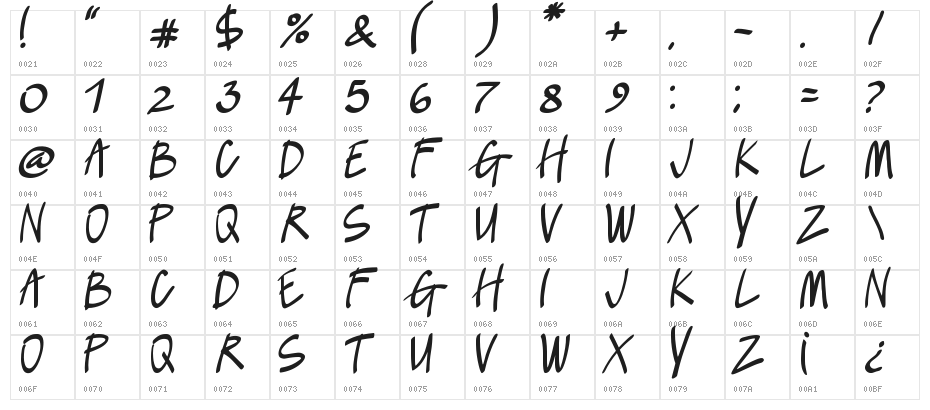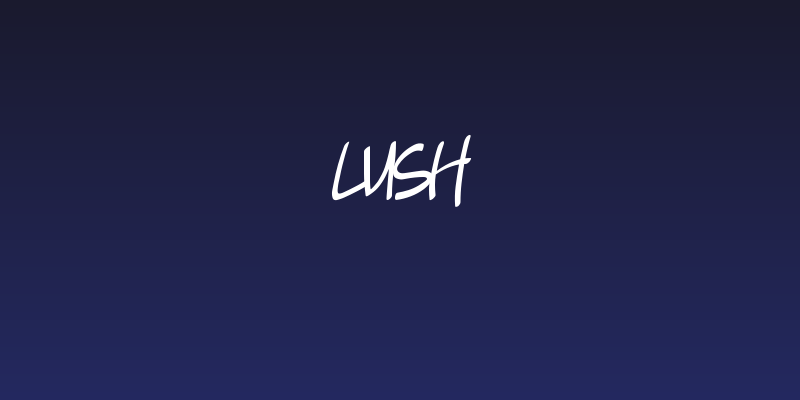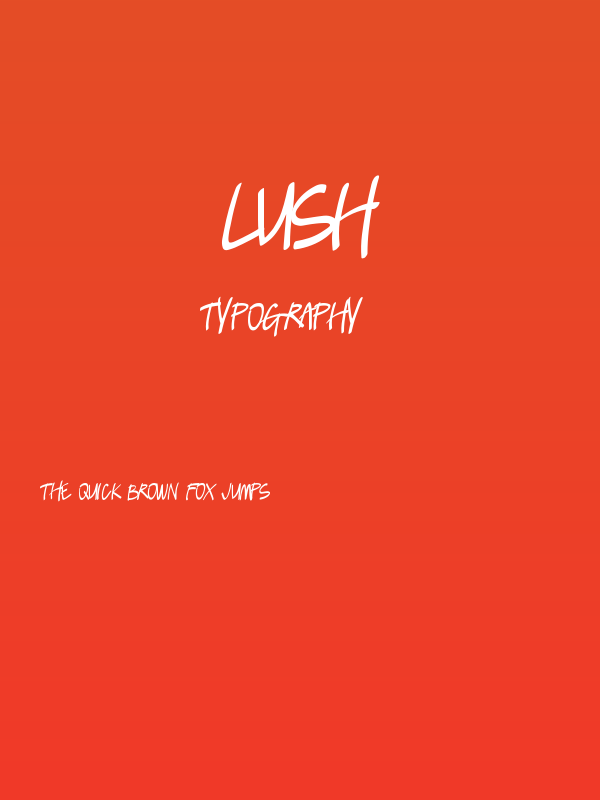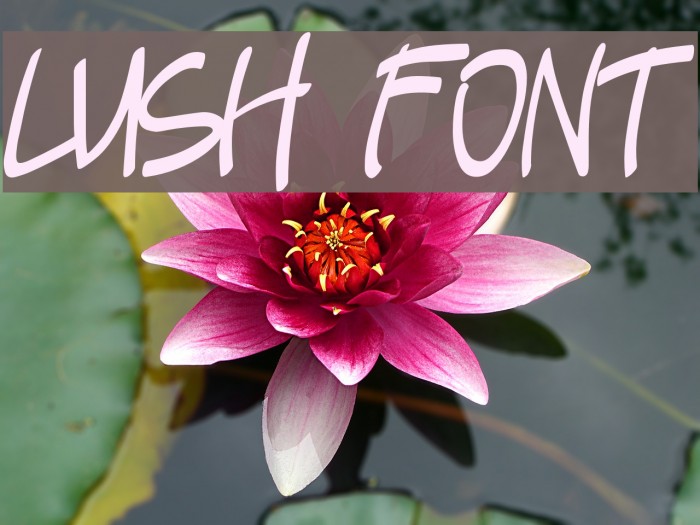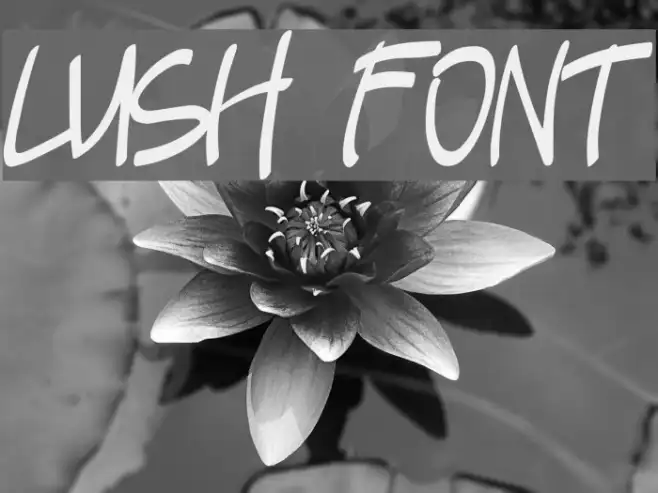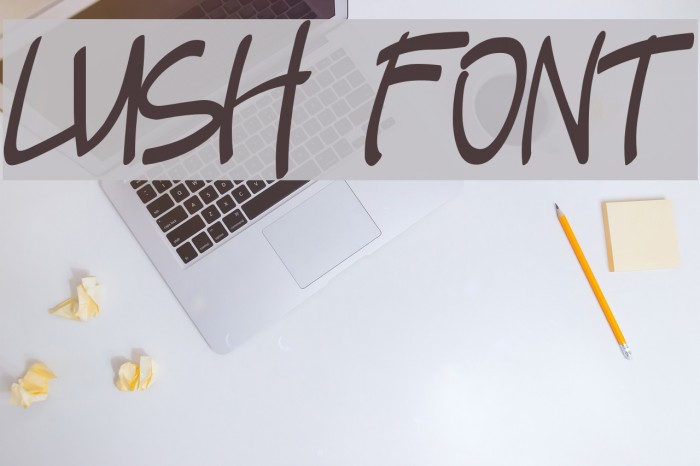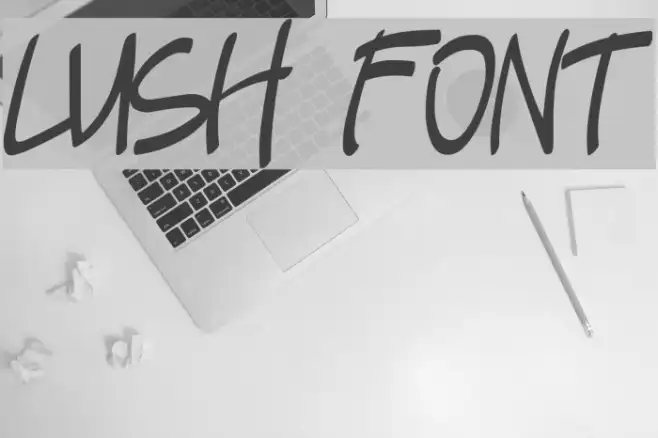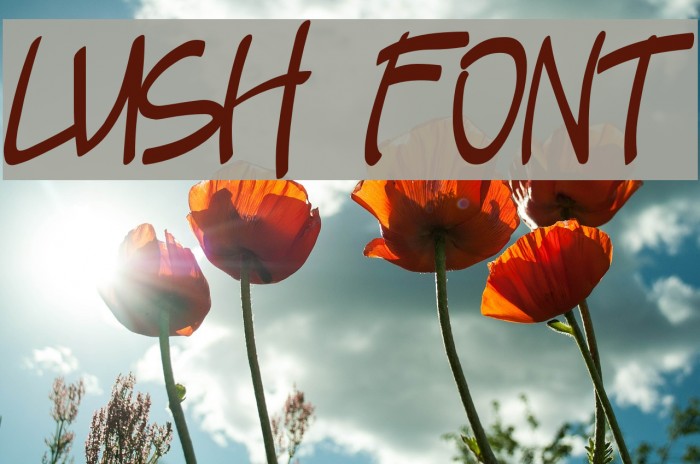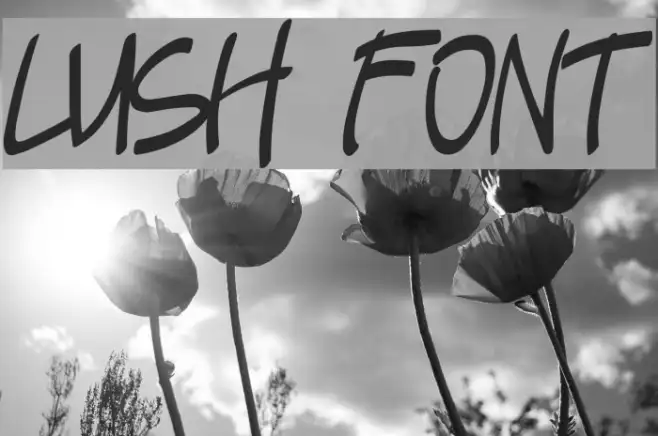
Lush Font
Lush Description
This font exudes a dynamic and energetic style, characterized by its bold, handwritten appearance. The letters are fluid and slightly slanted, giving a sense of motion and spontaneity. The strokes are thick and consistent, providing a strong visual impact. The uppercase and lowercase letters maintain a cohesive look, with the uppercase being slightly more pronounced. Numbers and special characters follow the same lively style, ensuring uniformity across all elements. The font's playful yet assertive nature makes it ideal for projects that require a personal touch with a bold statement.
| Use Case | Logos, Headlines, Posters |
| Proposed Projects | Ideal for branding, posters, social media graphics, and any project needing a personal, bold touch. |